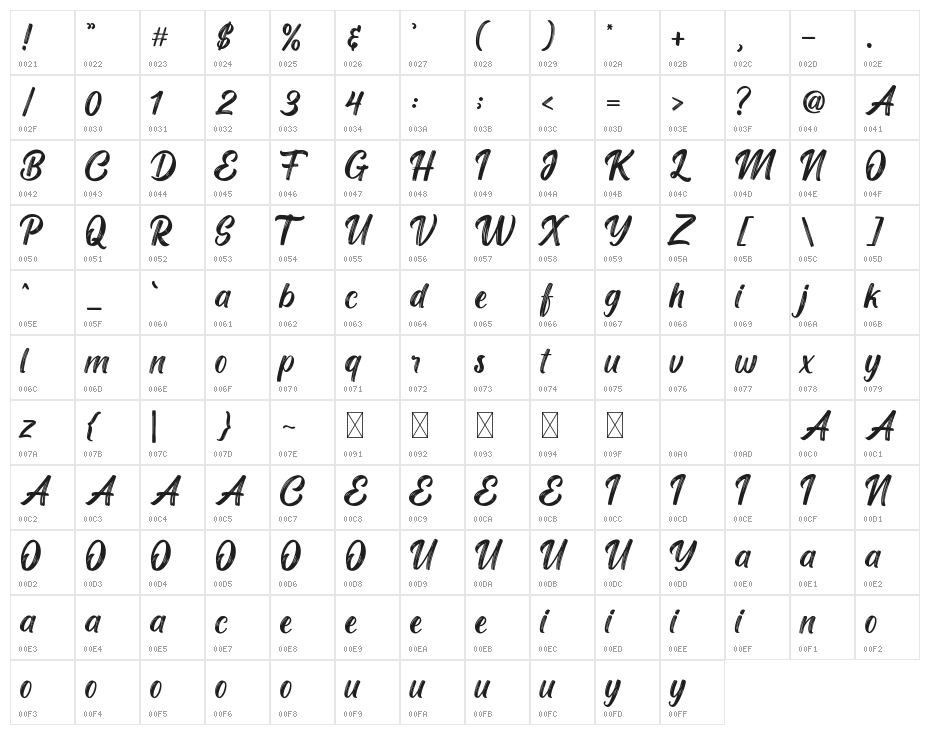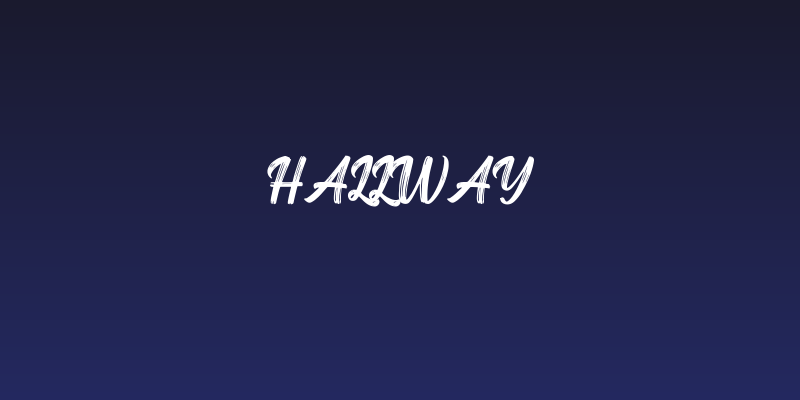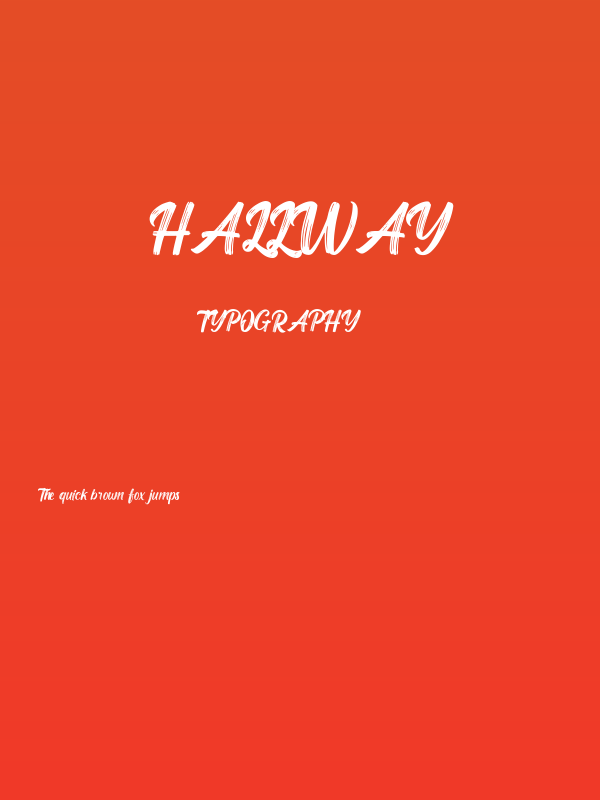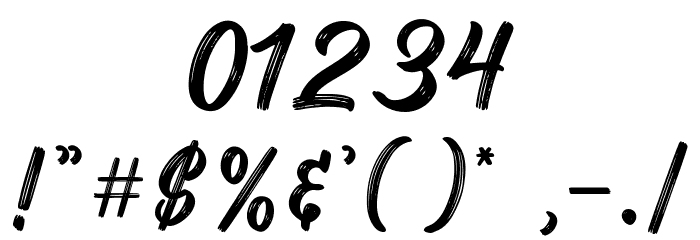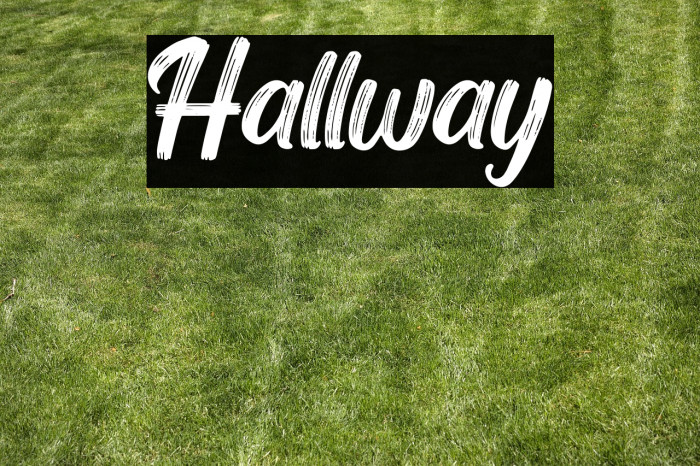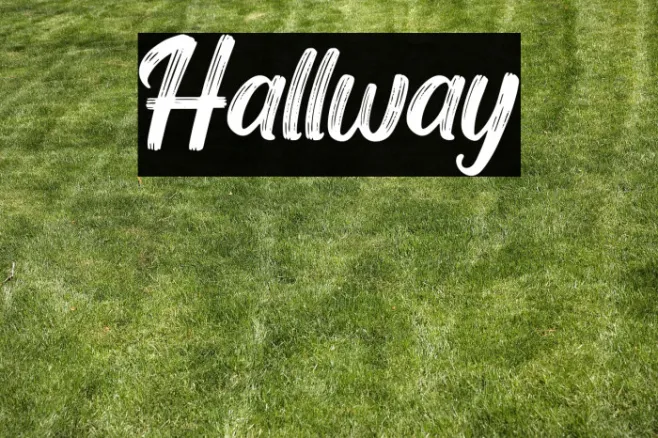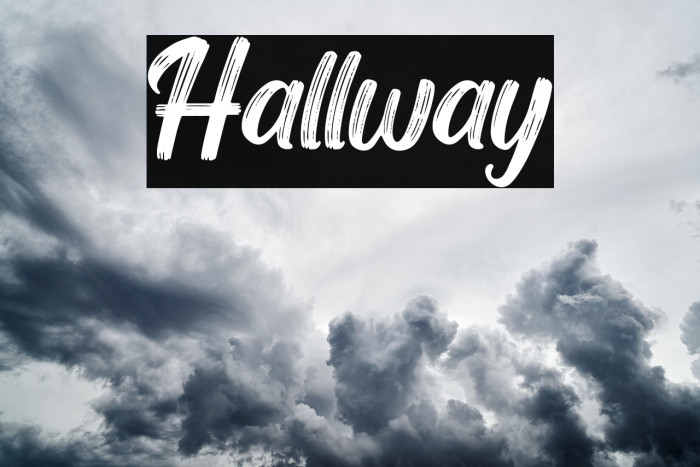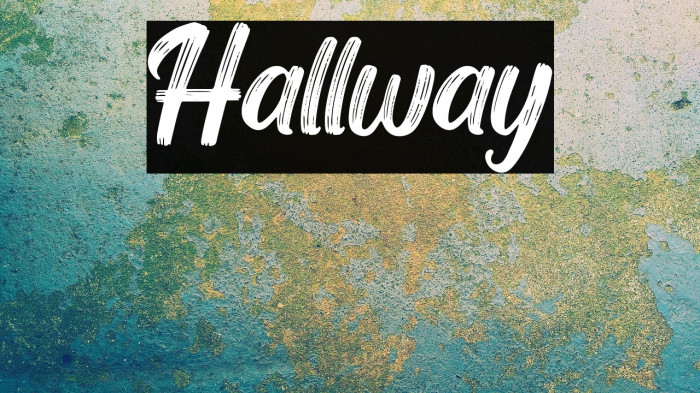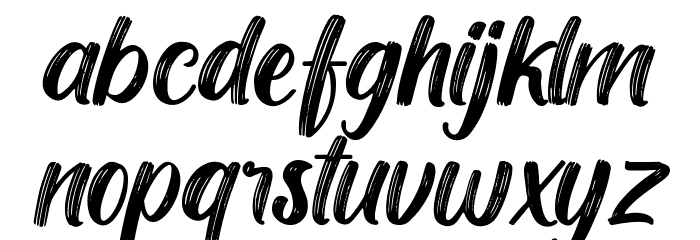
Hallway Font
Hallway Description
This font features a bold and dynamic brush script style, characterized by its energetic and flowing strokes. The letters are crafted with a sense of movement and spontaneity, giving it a lively and expressive appearance. The uppercase and lowercase letters maintain a consistent style, with a slight slant that enhances the cursive feel. The numbers and special characters are designed to match the overall aesthetic, ensuring a cohesive look across all text elements. This font's boldness and artistic flair make it a standout choice for projects that require a touch of creativity and personality.
| Proposed Projects | Ideal for branding, posters, invitations, and any design requiring a creative and expressive touch. |